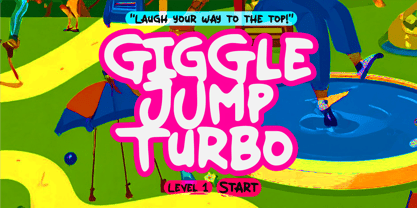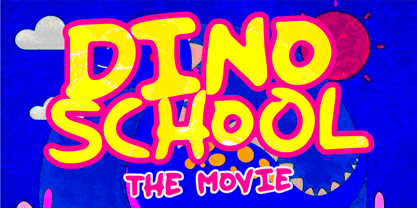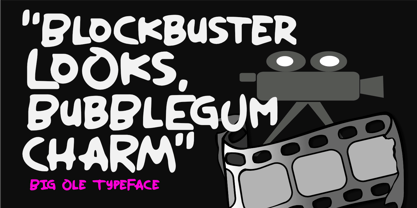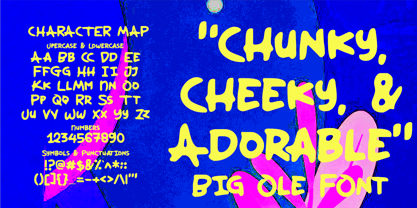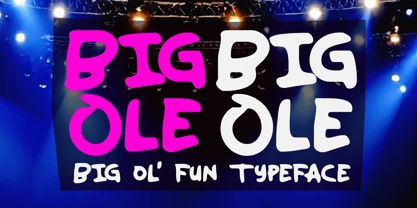
Big Ole
by Epiclinez
Big Ole is a chunky, cheerful display font that brings fun to the forefront. Featuring bold strokes, rounded curves, and a friendly attitude, Big Ole is perfect for designers who want their work to stand out with a joyful twist. With a complete set of uppercase and lowercase letters, plus numbers, symbols, punctuation, and multilingual support, this font is ready to take on any creative project.
From gaming titles and movie posters to kids’ branding, YouTube thumbnails, and product packaging, Big Ole delivers an eye-catching, fun-loving vibe that grabs attention and makes people smile.
Big Ole brings a big impact with a playful soul.
Designers: Aldy Sidik
Foundry: Epiclinez